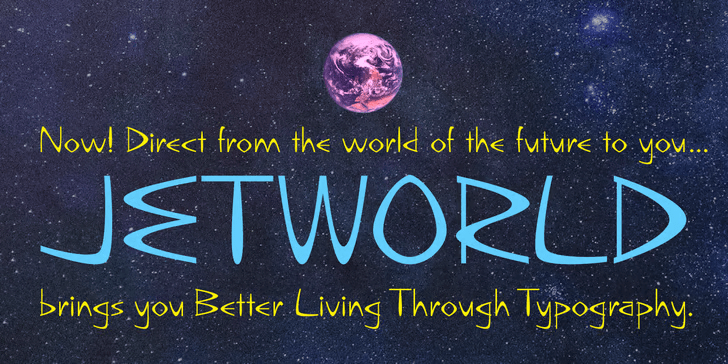
October 31, 2025 Image Stephen Lenius ’20, MA has brought his graduate capstone project to a wider audience with the commercial release of his custom-designed typeface. Originally titled Jetsonville, the font has been renamed Jetworld and is now available through My Fonts.Published by Nelson Borhek Press, Jetworld is a space-age typeface with a retro-forward look—combining sleek, tapered curves with rigid vertical and horizontal lines to create a sense of rhythm and motion. Inspired not by handwriting or calligraphy, but by midcentury modern architecture and design, Jetworld draws from visual icons like the Theme Building at LAX, the TWA terminal at JFK, and even the playful futurism of The Jetsons.Learn MoreJetworld(myfonts.com) Explore more about Steve Lenius